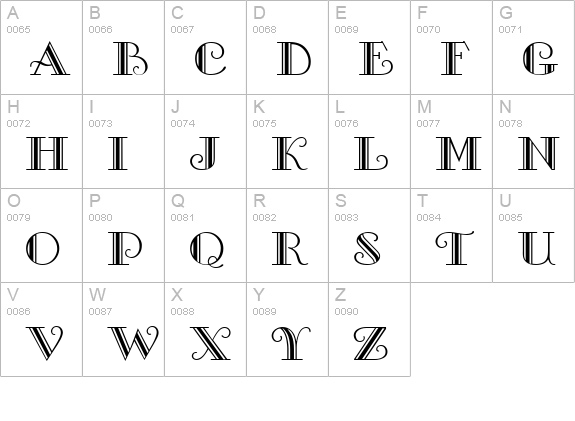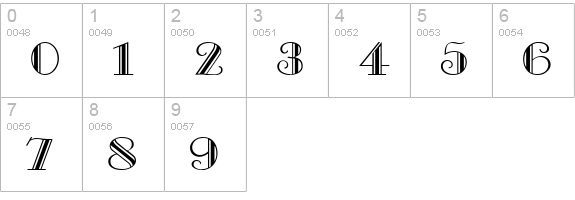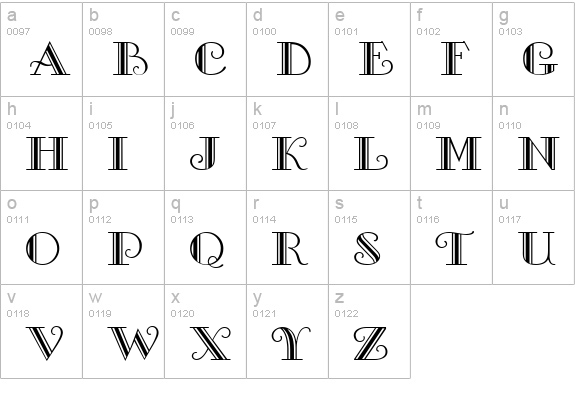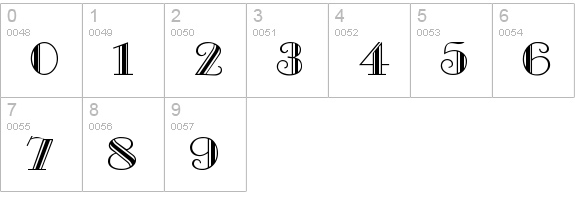
TR Galleria is a sophisticated and elegant font that exudes charm and style. With its graceful curves and refined details, this font is perfect for adding a touch of class to any design project. Whether you're creating invitations, logos, or branding materials, TR Galleria is sure to make a statement. What's even better is that TR Galleria is available for free download at FontsMarket.com. This means you can easily access this stunning font and use it in your projects without any cost. So why wait? Elevate your designs with TR Galleria today and let its timeless beauty shine through.